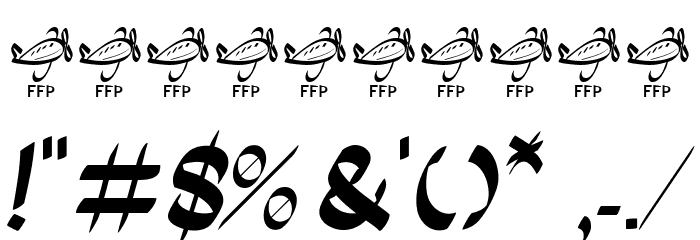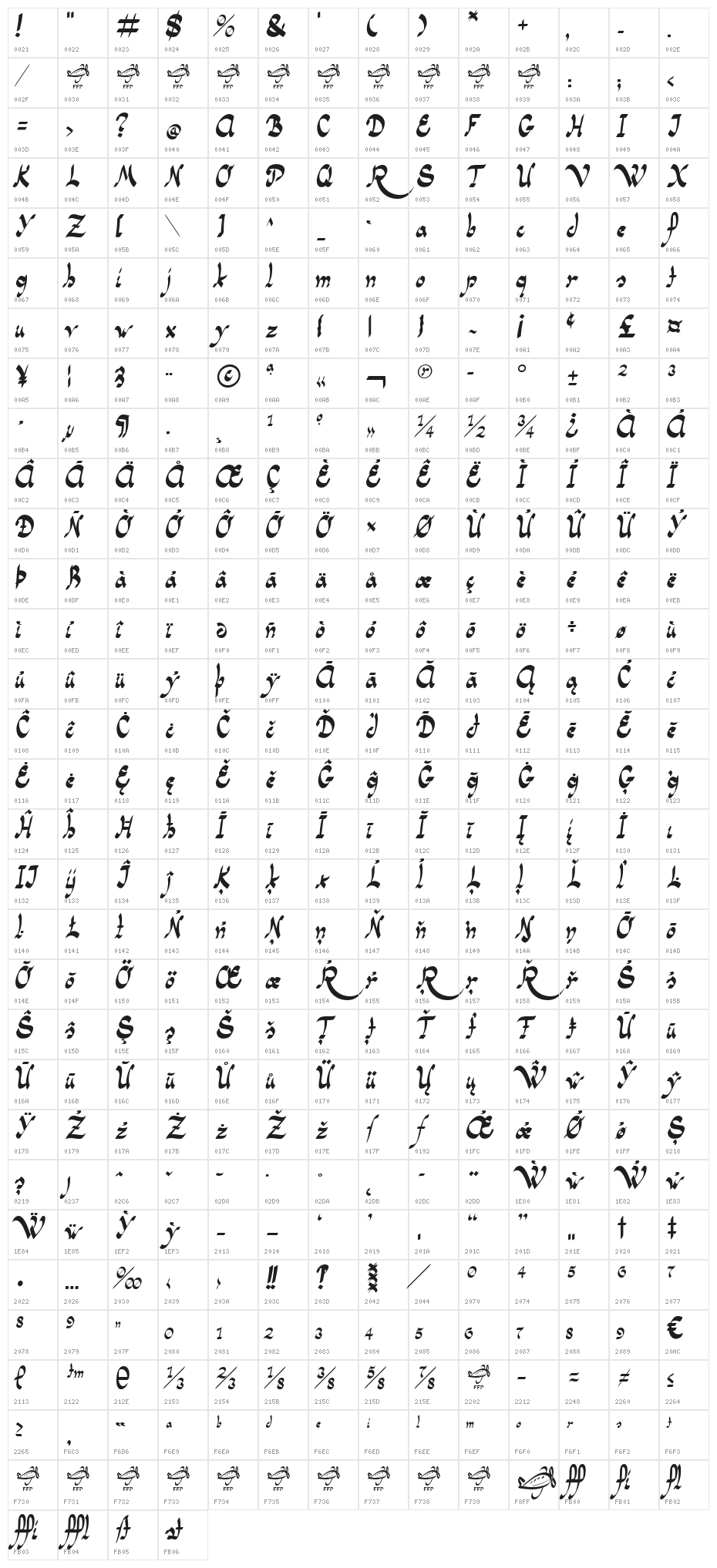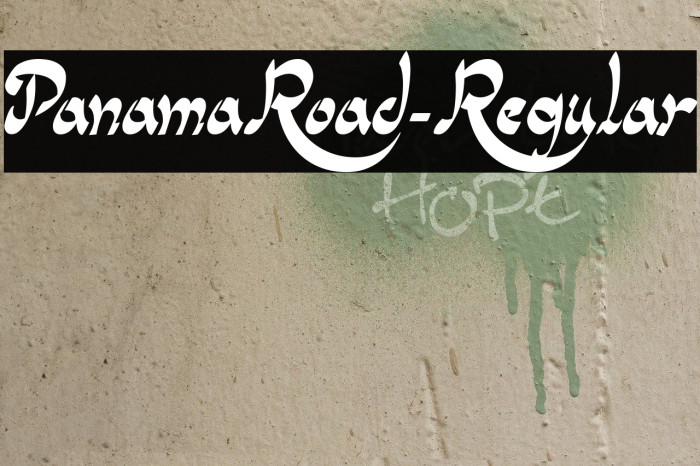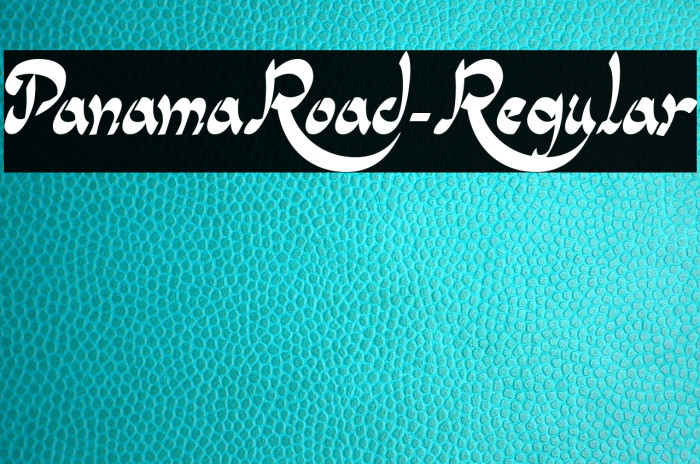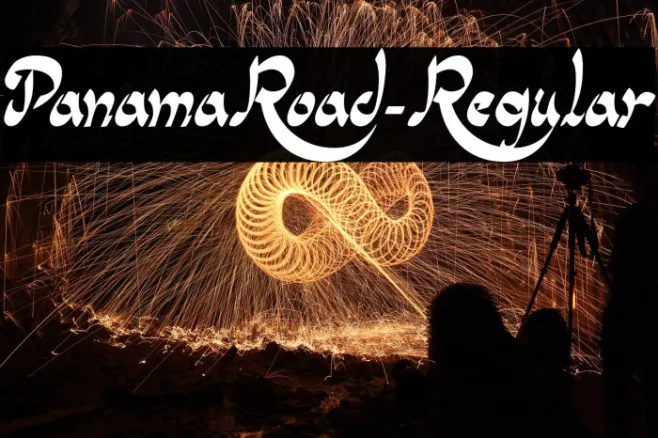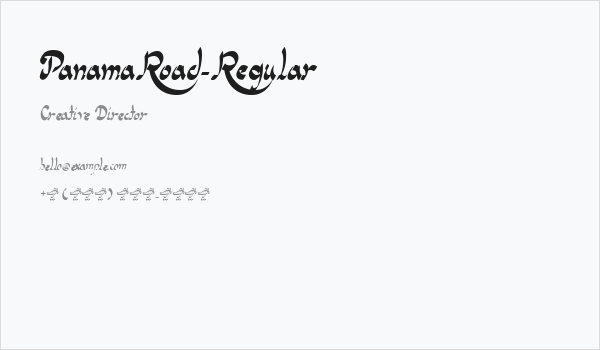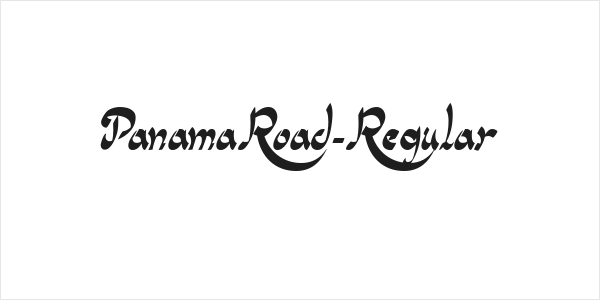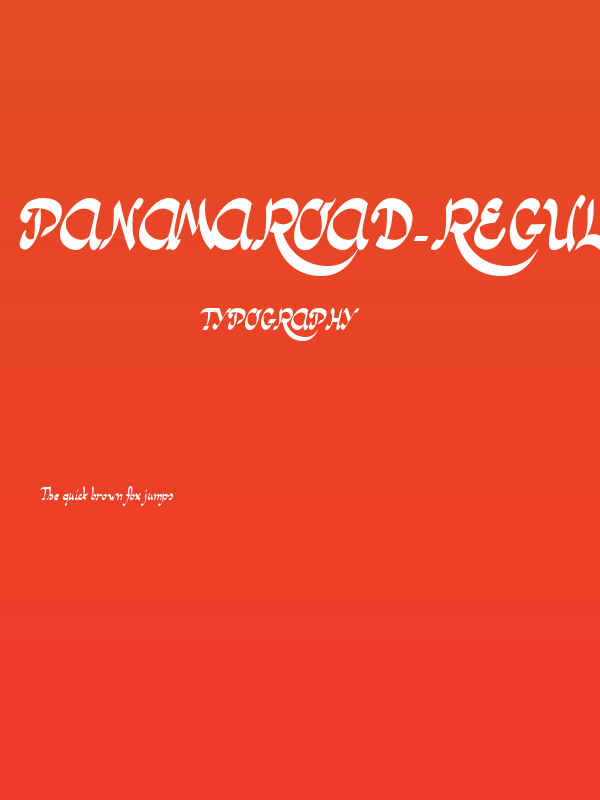
PanamaRoad-Regular Font
PanamaRoad-Regular Description
This font exhibits a dynamic and expressive style, characterized by its bold, sweeping strokes and a sense of movement reminiscent of calligraphy. The uppercase letters are particularly striking, with exaggerated curves and angles that give them a dramatic flair. The lowercase letters maintain this fluidity, offering a cohesive look across the alphabet. The numbers and special characters are equally stylized, ensuring consistency throughout. This font's unique design makes it stand out, ideal for projects that require a touch of elegance and creativity.